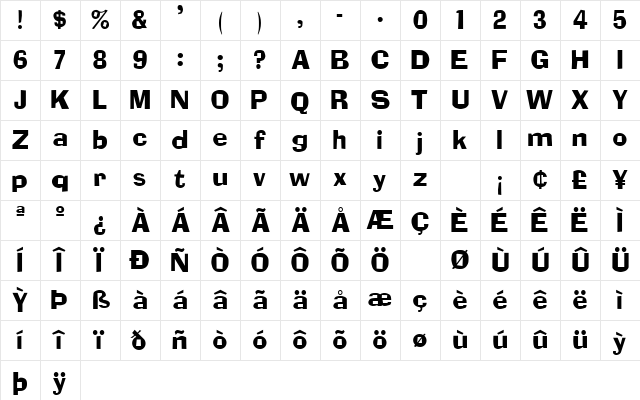
Addled Regular
Addled Family
Design Context for Addled
Addled is a composed and adaptable typeface that performs quietly and consistently across a wide range of design contexts.